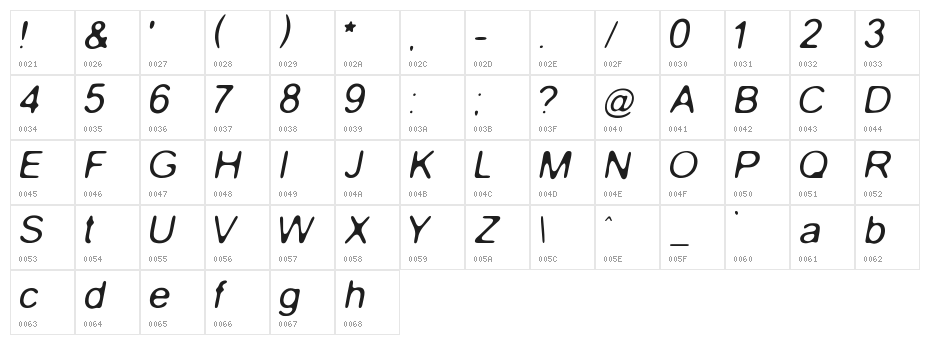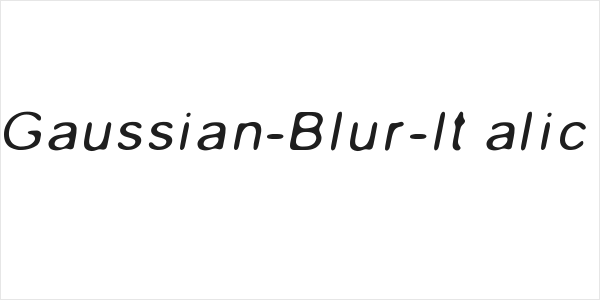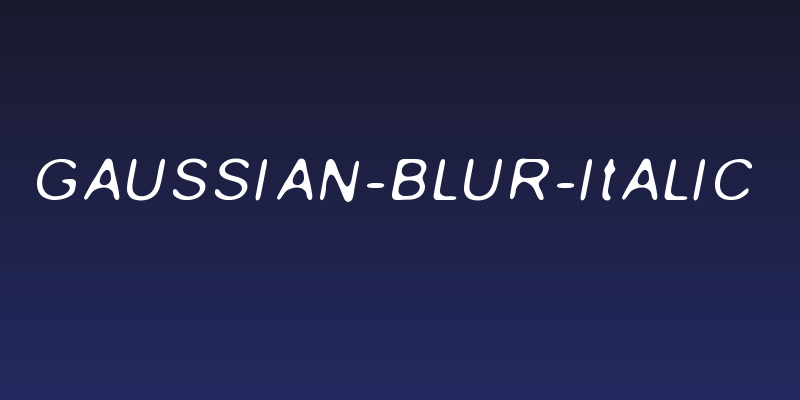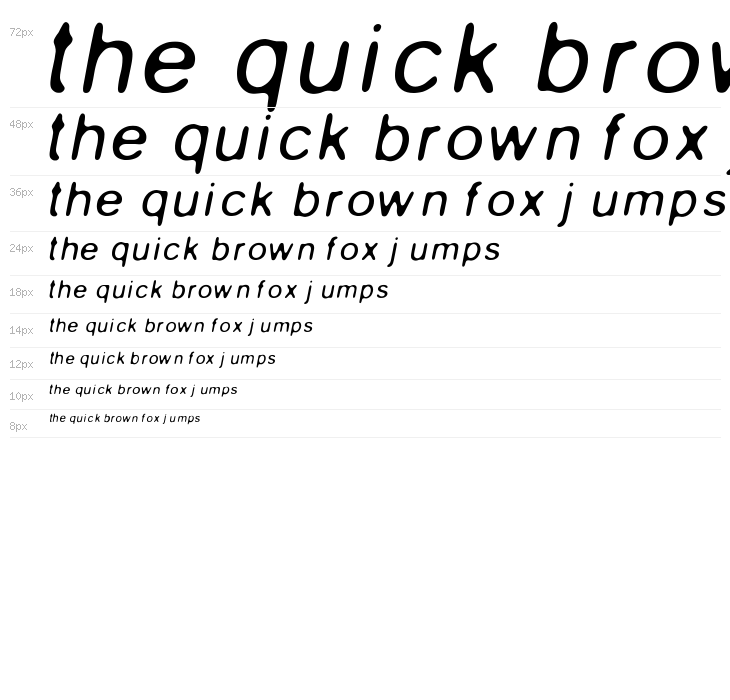
Gaussian-Blur-Italic Font
Gaussian-Blur-Italic Description
This font features a playful and dynamic style with a slight italic slant, giving it a sense of motion and fluidity. The characters are rounded and smooth, with a consistent stroke width that provides a harmonious appearance. The uppercase and lowercase letters are well-proportioned, and the numerals are clear and legible. Special characters are included, maintaining the same playful aesthetic. This font is suitable for projects that require a friendly and approachable look, such as children's books, casual branding, or creative posters.
| Proposed Projects | Ideal for children's books, casual branding, creative posters, and playful designs. |